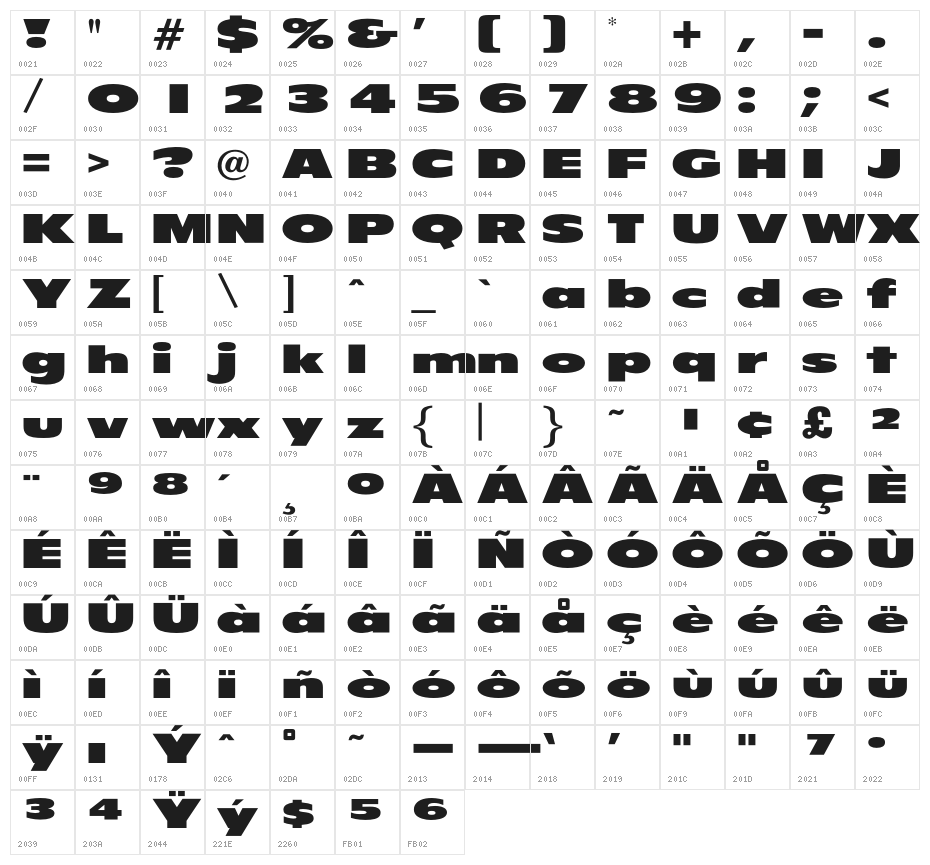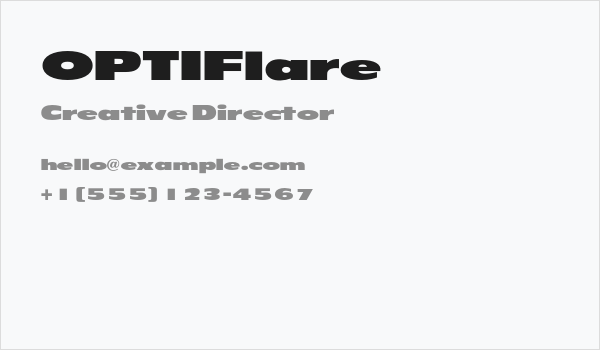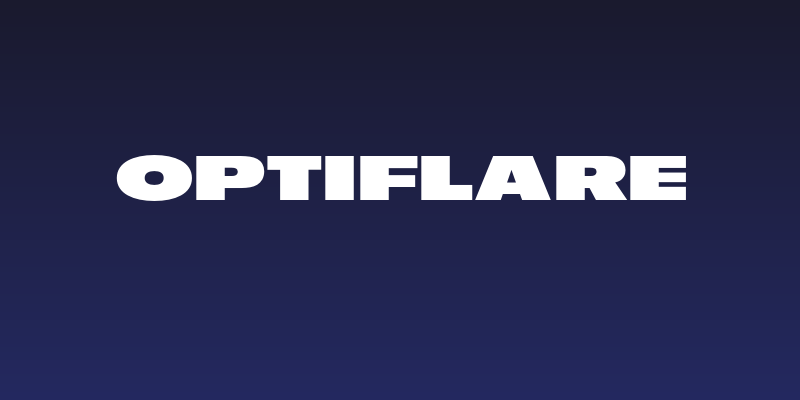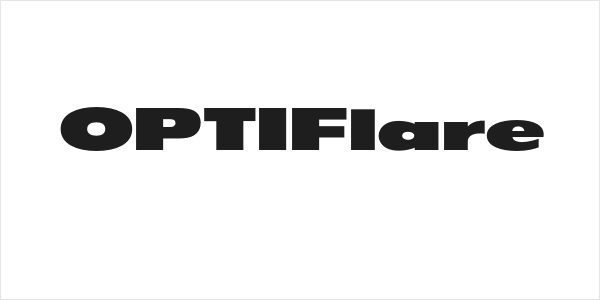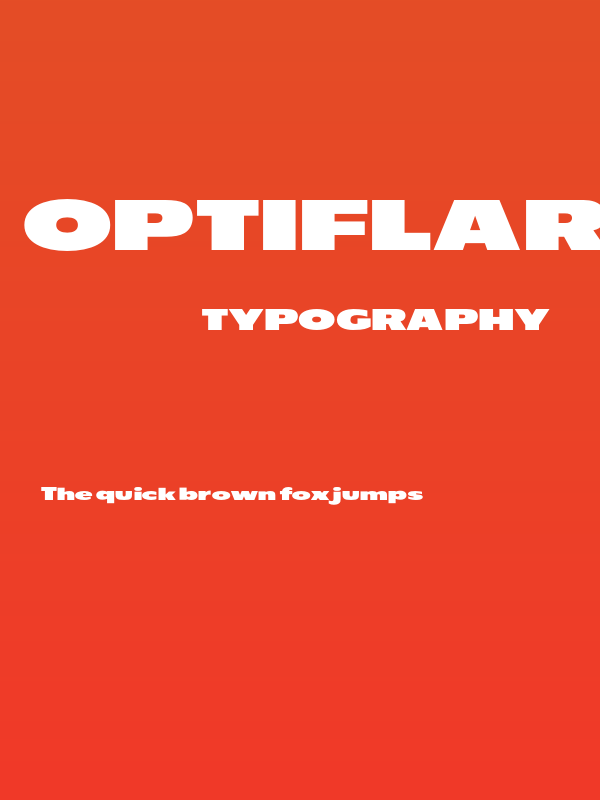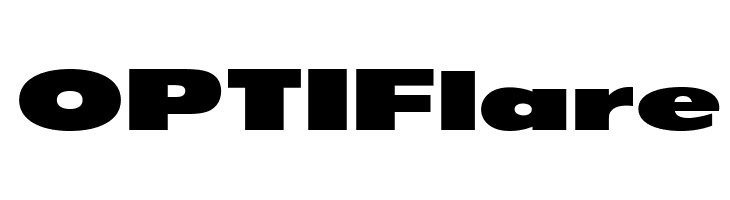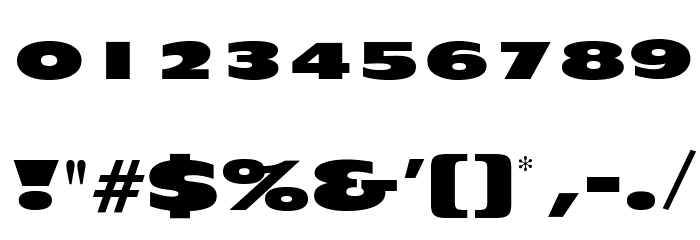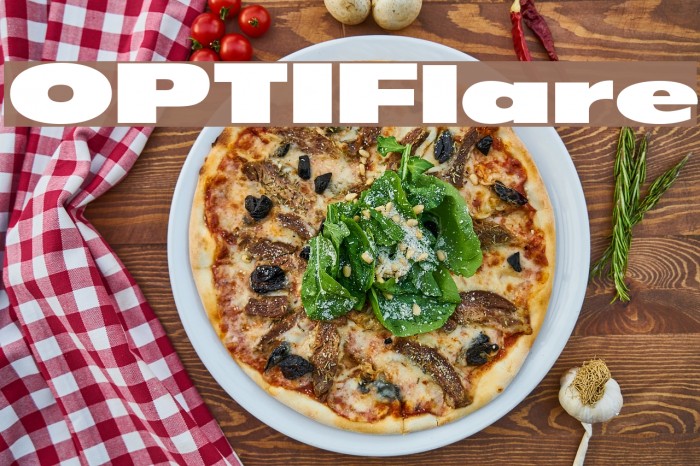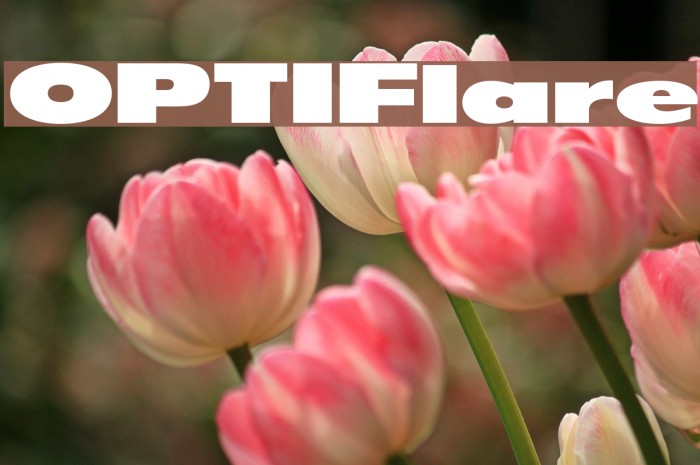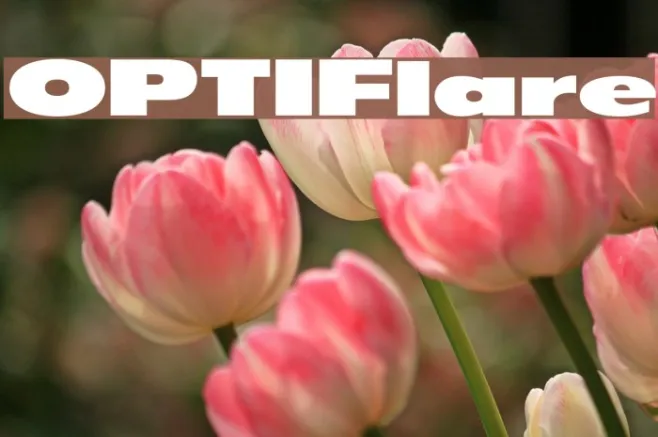
OPTIFlare Font
OPTIFlare Description
This font features bold, impactful characters with a strong presence, making it ideal for attention-grabbing headlines and titles. The uppercase and lowercase letters are uniformly bold, with a consistent stroke width that conveys strength and stability. The numerals and special characters maintain the same boldness, ensuring a cohesive look across all text elements. The design is straightforward yet powerful, with minimal contrast in stroke thickness, emphasizing its bold nature. The font's style is modern and assertive, suitable for projects that require a commanding visual impact.